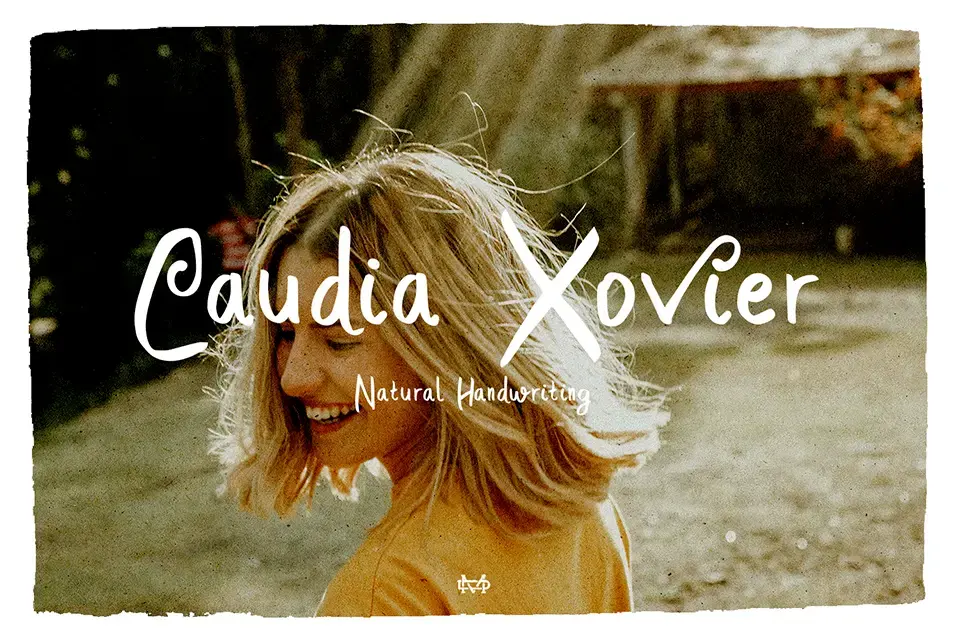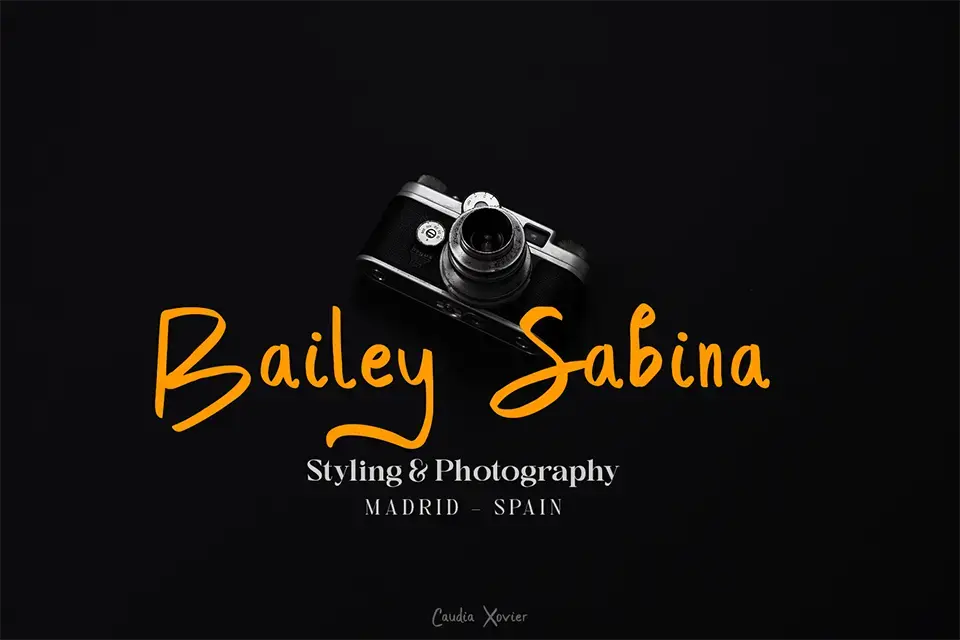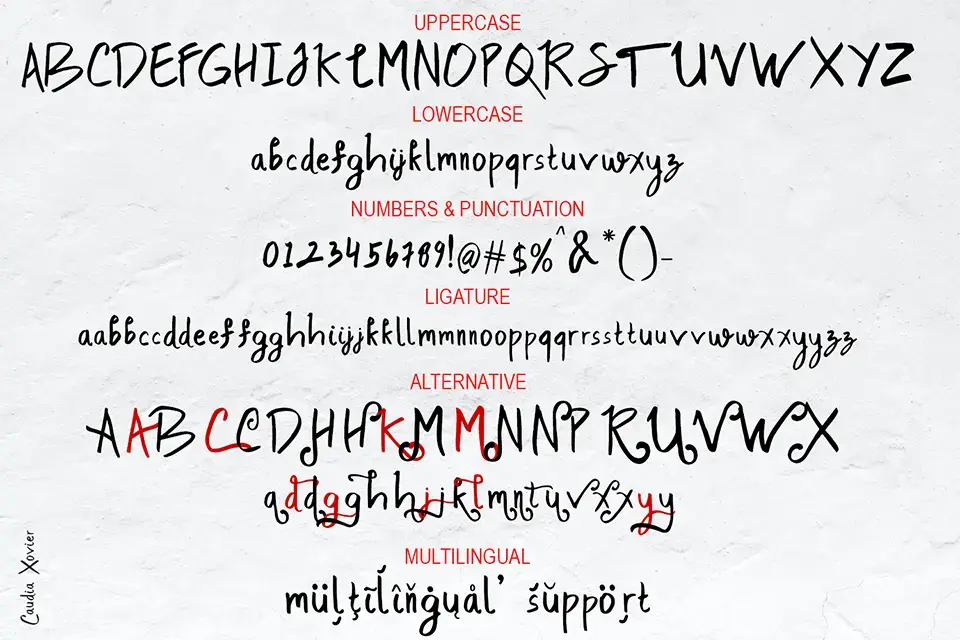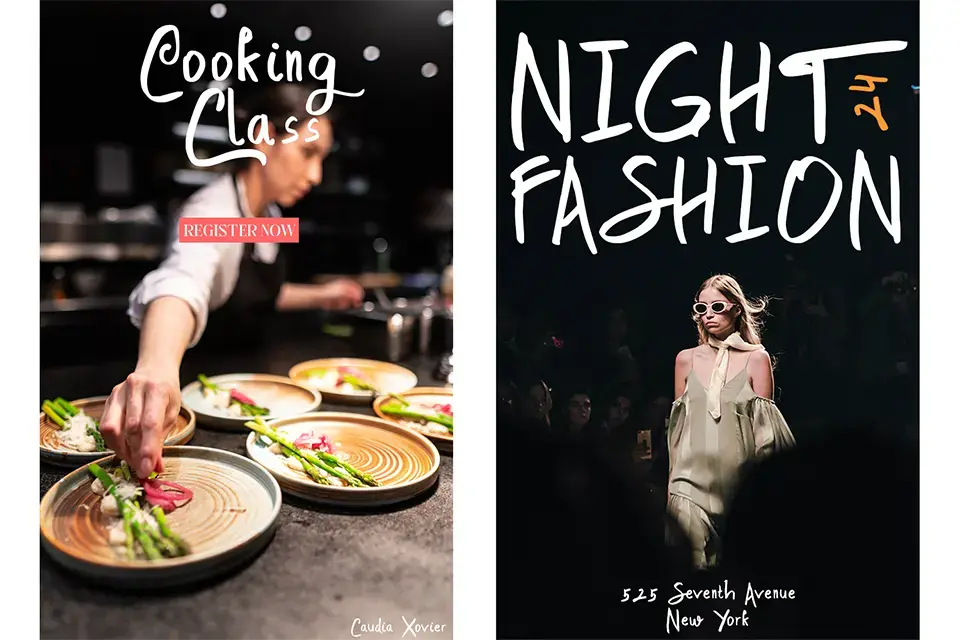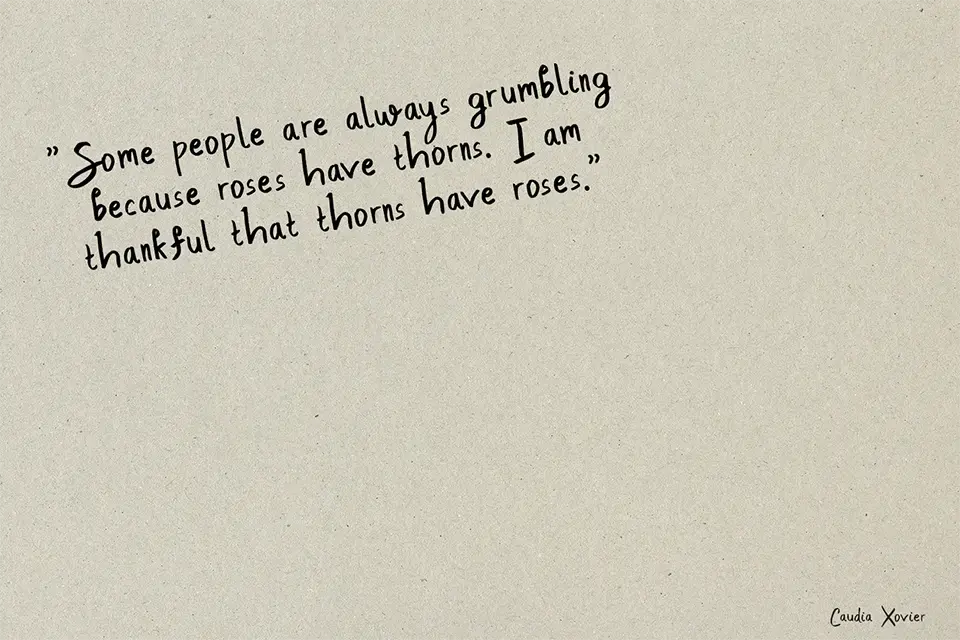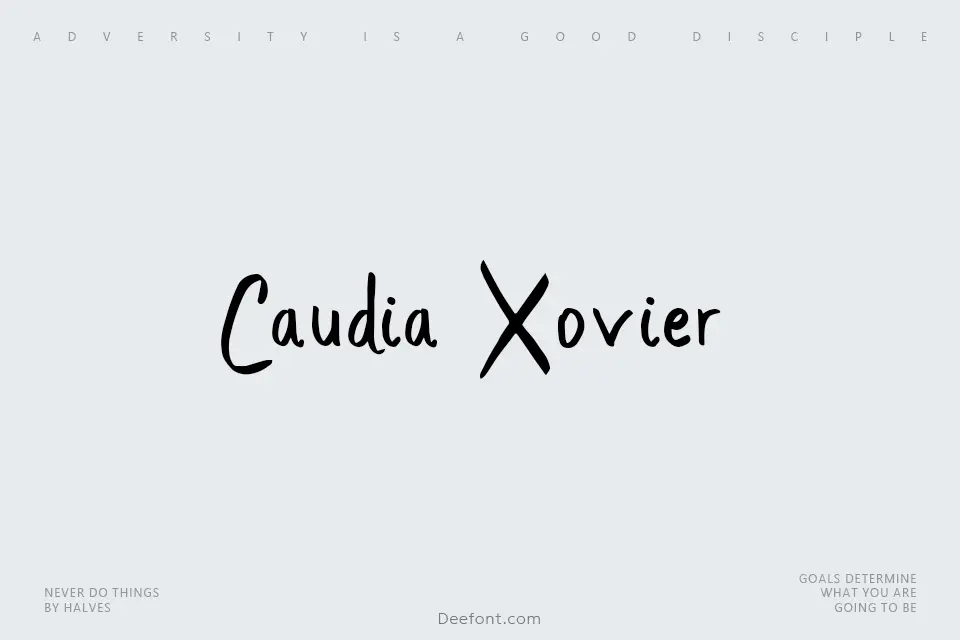
Caudia Xovier Font
Caudia Xovier is a beautifully crafted handwritten script font characterized by its flowing, organic brushstrokes and contemporary elegance. The typeface features smooth, connected letterforms with dynamic variations that evoke the charm of natural handwriting, making it ideal for creating impactful posters, wedding invitations, greeting cards, and decorative titles. Its playful yet sophisticated aesthetic brings warmth and personality to design projects, particularly suited for creative branding, packaging design, and display applications where a touch of human-made charm enhances visual communication.